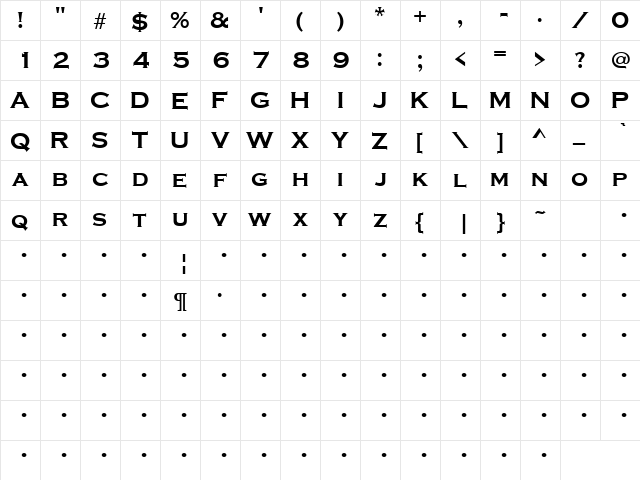
QTGraveure Bold Font Preview
QTGraveure Bold
QTGraveure Bold Font Details
Design Context for QTGraveure Typeface
QTGraveure takes a measured approach to typography — its balanced proportions and neutral character make it a reliable workhorse for both digital and print work. The heavy weight commands attention and anchors typographic hierarchies.